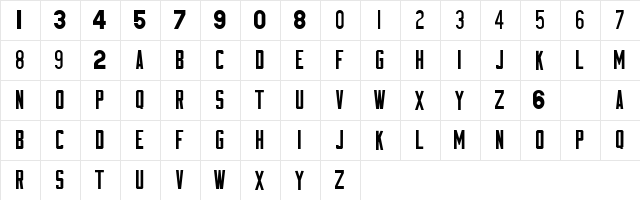
NFL Bears Regular Font Preview
NFL Bears Regular
Design Context for NFL Bears Typeface
NFL Bears takes a measured approach to typography — its balanced proportions and neutral character make it a reliable workhorse for both digital and print work.